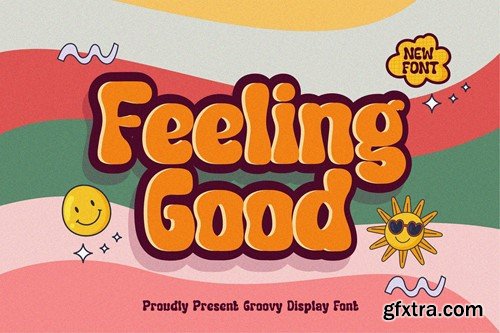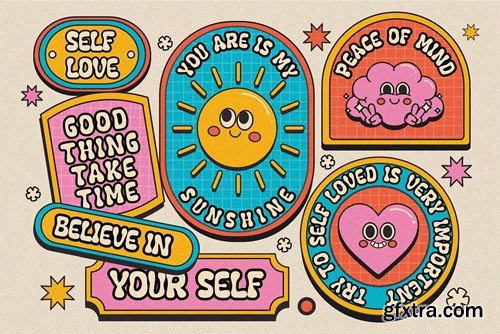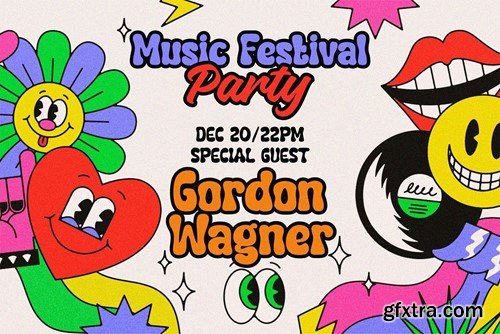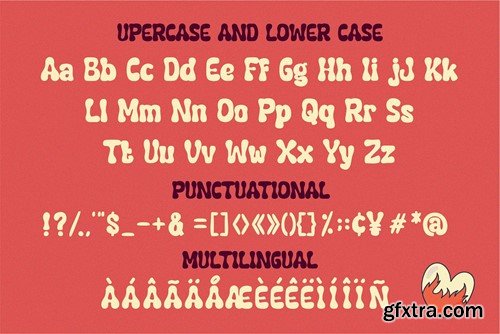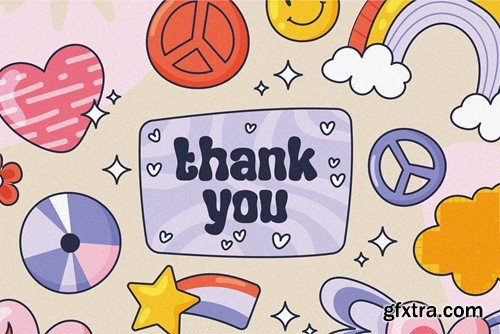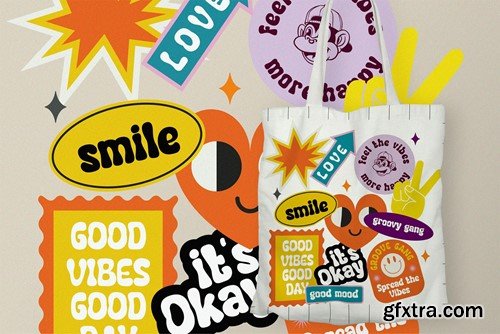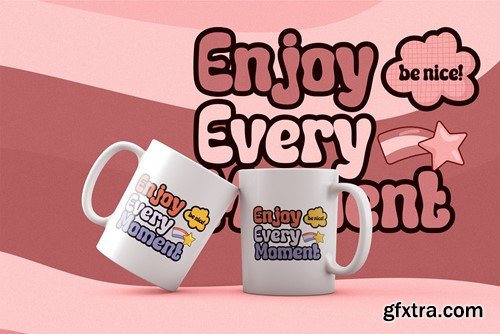
感觉良好 - 爽朗展示字体JW895PT
Feeling Good - Groovy Display Font JW895PT
Feeling Good - Groovy Display Font
Feeling Good is a cute and simple font, best used as a display for headings, logos, branding, magazines, product packaging and invitations.